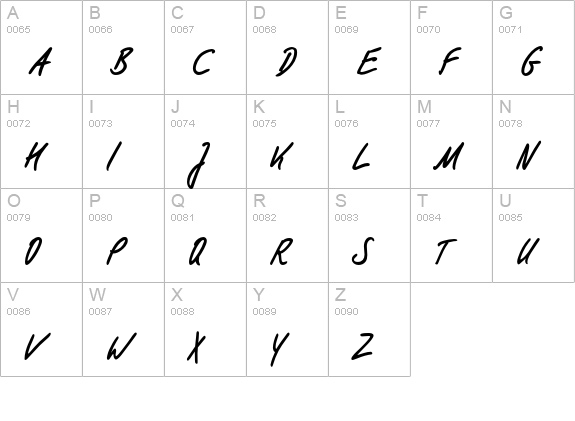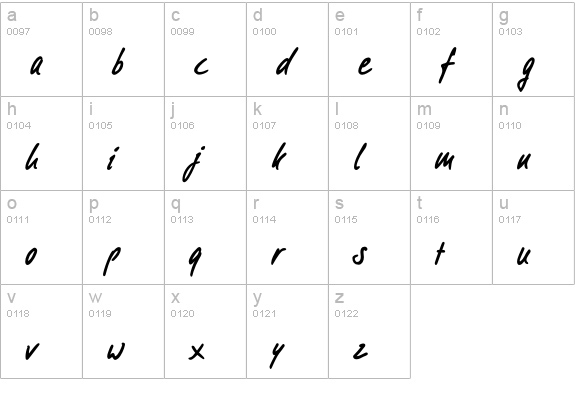
FilzerhandEF-Regular Font Details
FilzerhandEF-Regular is the standard, neutral variant in the FilzerhandEF typeface family \xE2\x80\x94 well suited to general body text, paragraphs, and standard typographic work.
FilzerhandEF-Regular font is a beautifully crafted typeface that exudes elegance and sophistication. Its sleek lines and modern aesthetic make it perfect for a wide range of design projects, from branding to editorial design. This versatile font strikes the perfect balance between professionalism and creativity, making it a must-have addition to any designer's toolkit. What sets FilzerhandEF-Regular font apart is not just its stunning design, but also the fact that it is available for free download. That's right, you can easily access this high-quality font without having to break the bank. Simply head over to FontsMarket.com and start incorporating this stylish typeface into your projects today. Whether you're working on a logo, website, or print materials, FilzerhandEF-Regular font will bring a touch of sophistication and flair to your designs. With its clean lines and attention to detail, this font is sure to make a lasting impression on your audience. Don't miss out on this fantastic opportunity to enhance your design work with the timeless beauty of FilzerhandEF-Regular font. Download it for free now at FontsMarket.com and elevate your projects to the next level.